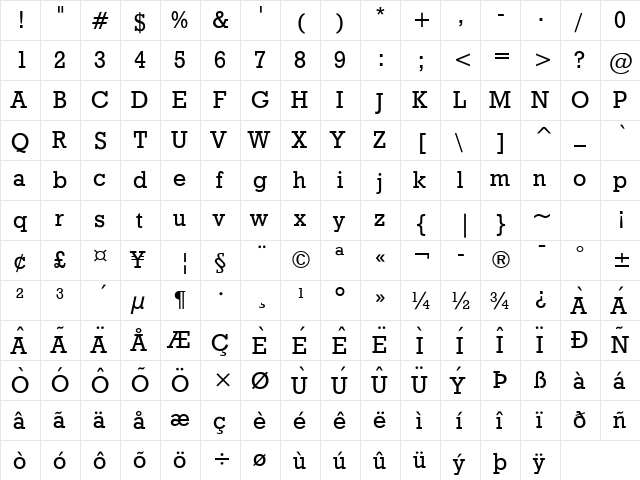
Geo 986 Normal
Design Context for Geo 986 Typeface
Geo 986 offers clean, dependable letterforms without strong stylistic allegiance, making it a practical choice for designers who need flexibility.
Pro Tip: Use Geo 986 in both headline and body roles to test its range before committing to a single application.